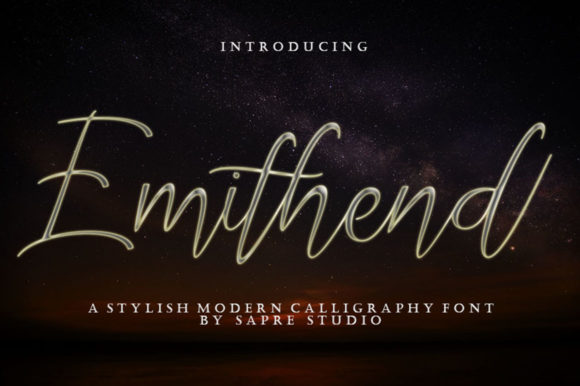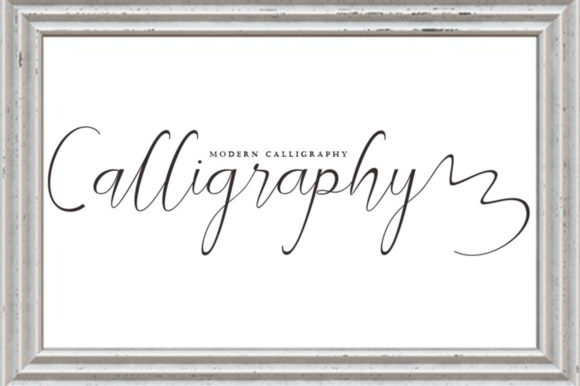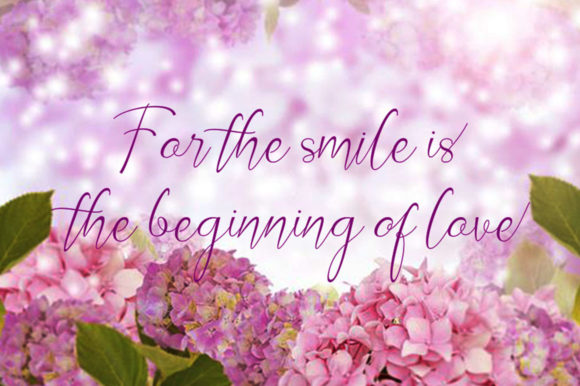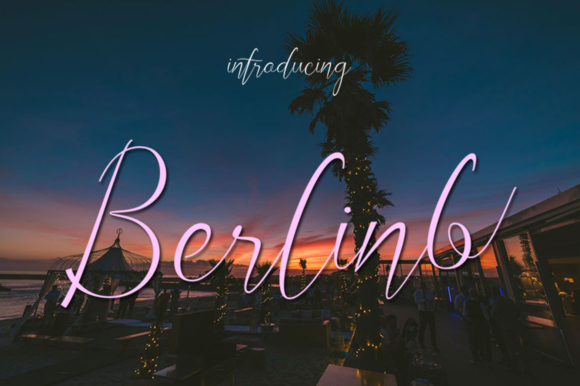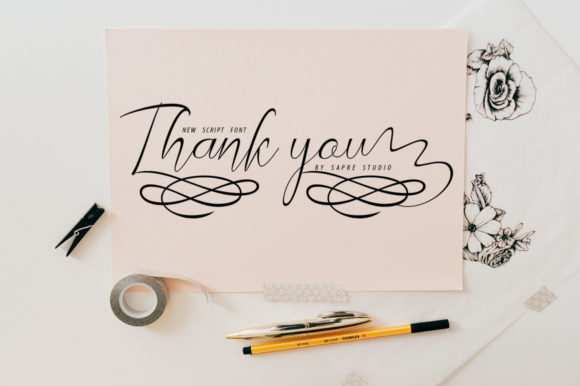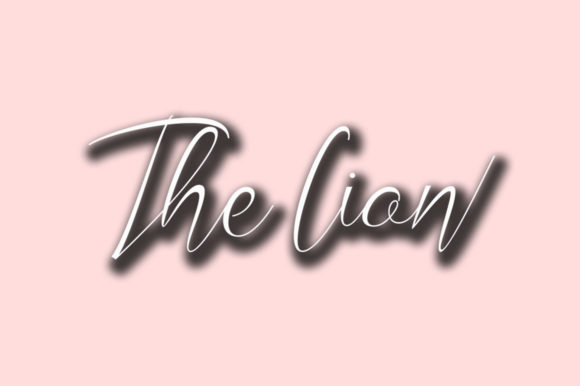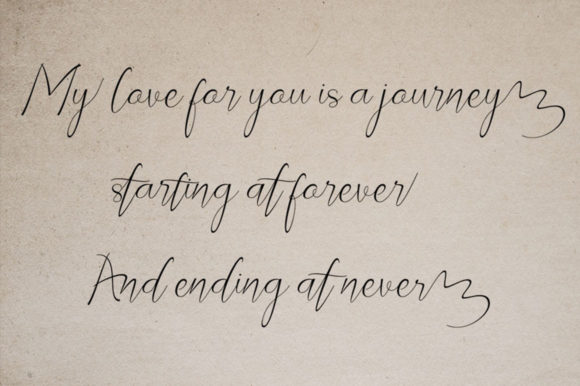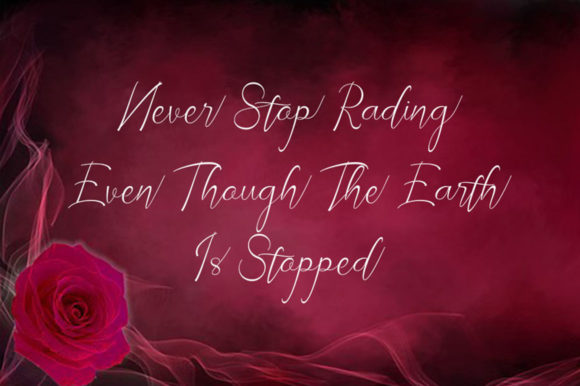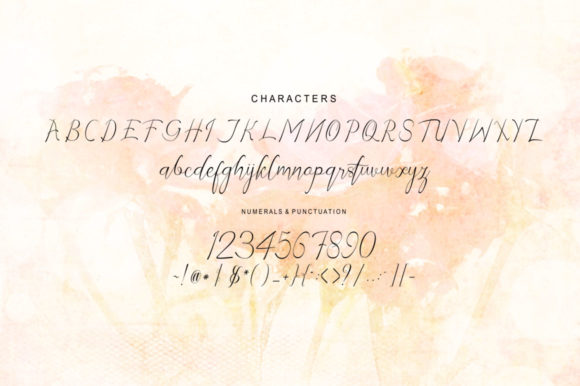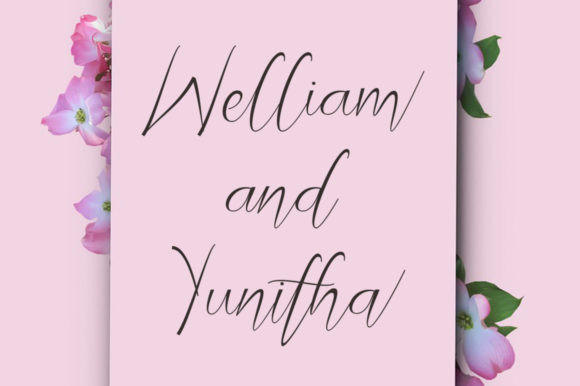
Emithend Font
About Emithend Font
The Emithend is a script that has fine lines with classic, modern and feminine touches. It can be used to give your design an luxurious feel.